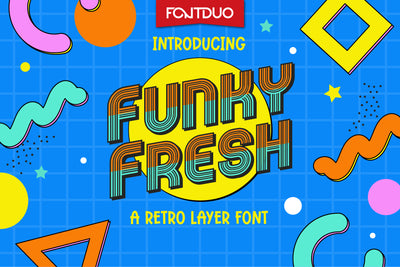
Funky Fresh Layer Retro Font
Funky Fresh is a retro-inspired layer font family. Whatever the topic, this font will be a wonderful asset to your font library, as it has the potential to enhance any creation.